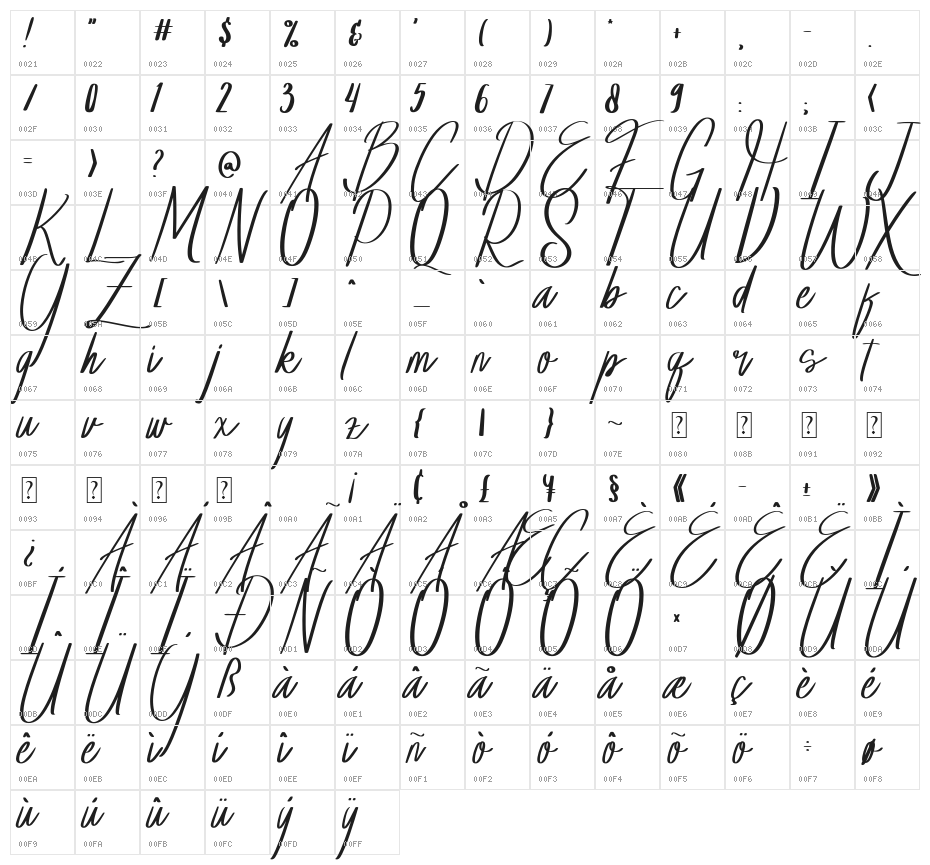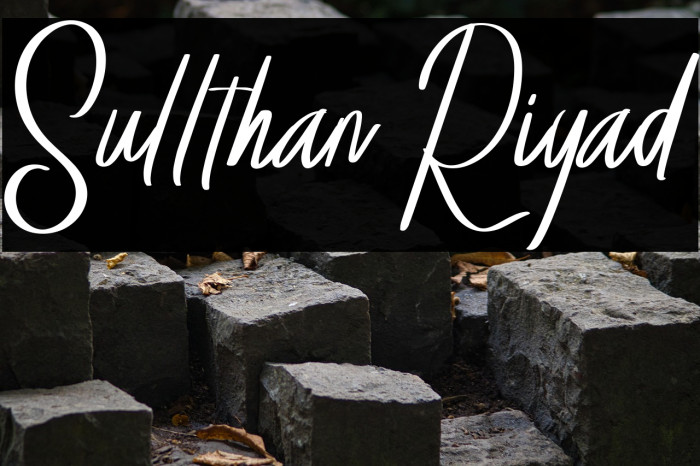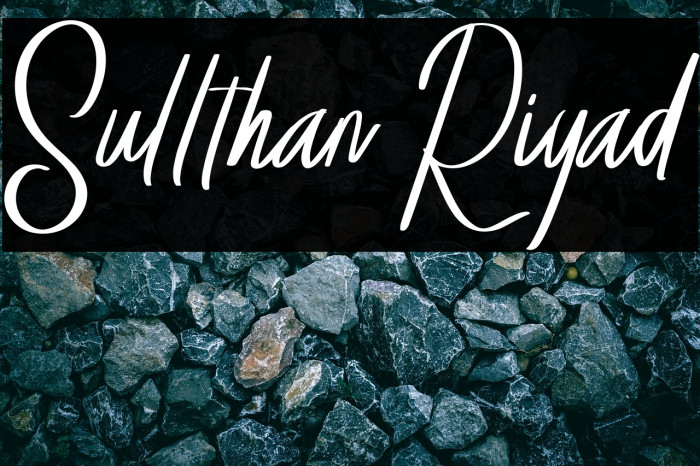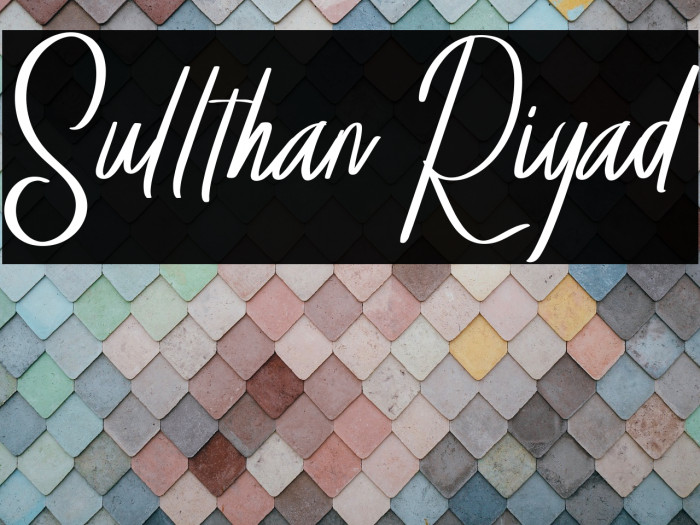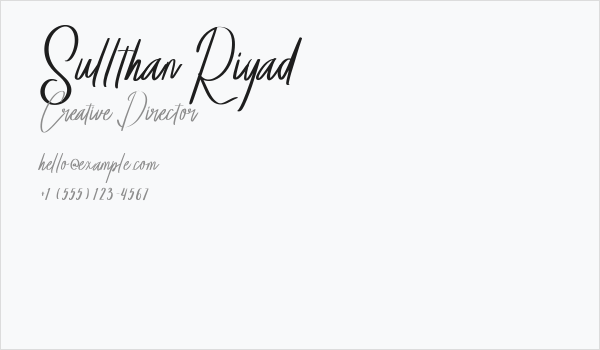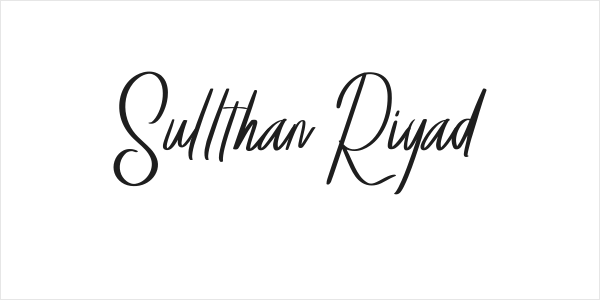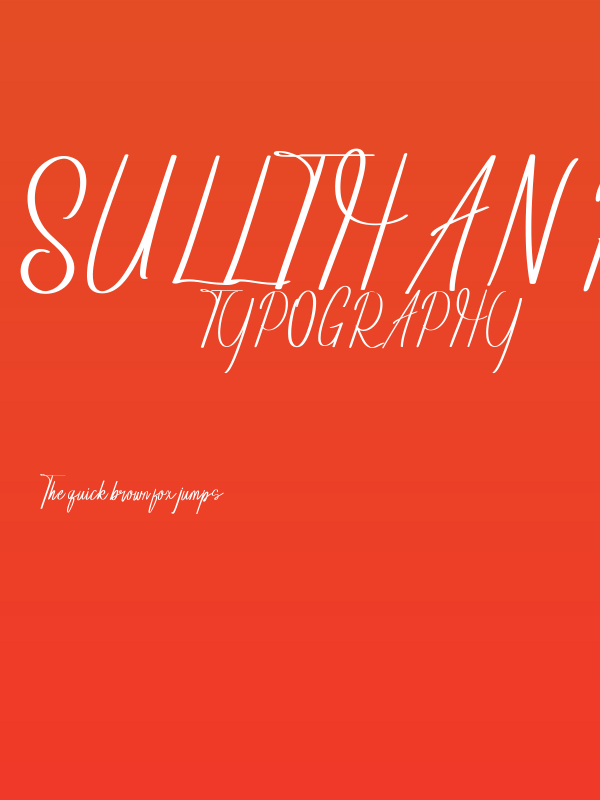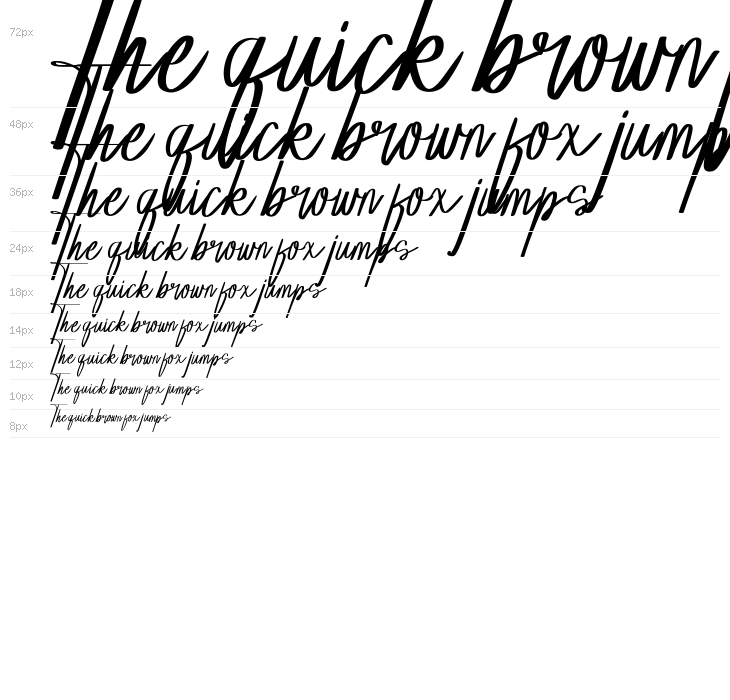
Sullthan Riyad Font
Sullthan Riyad Description
This font features a dynamic and expressive script style, characterized by its fluid and elegant strokes. The uppercase letters are tall and slender, with a slight slant that adds a sense of movement and grace. The lowercase letters are more bold and robust, providing a striking contrast to the uppercase. The numbers and special characters maintain the same flowing style, ensuring consistency throughout. This font's design is both modern and sophisticated, making it suitable for a variety of creative applications.
| Use Case | Logos, Invitations, Greeting Cards |
| Proposed Projects | Ideal for branding, invitations, greeting cards, and creative design projects that require a touch of elegance and sophistication. |